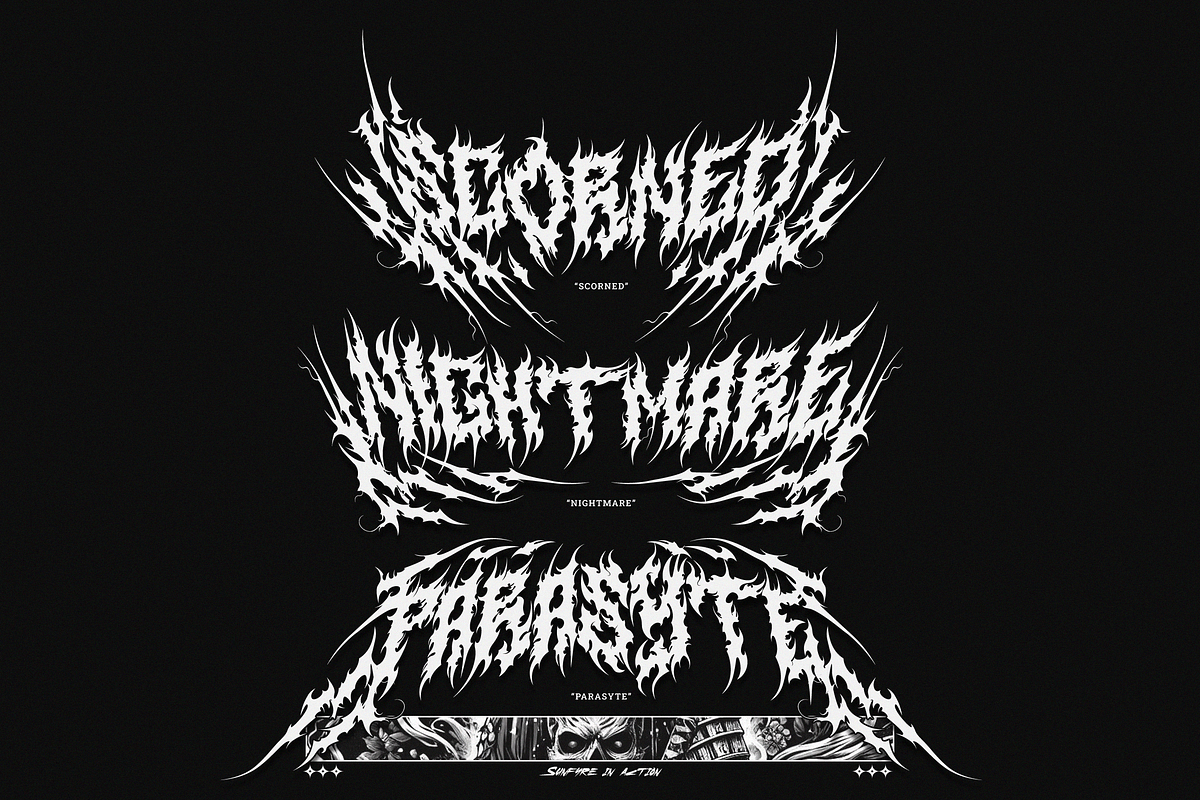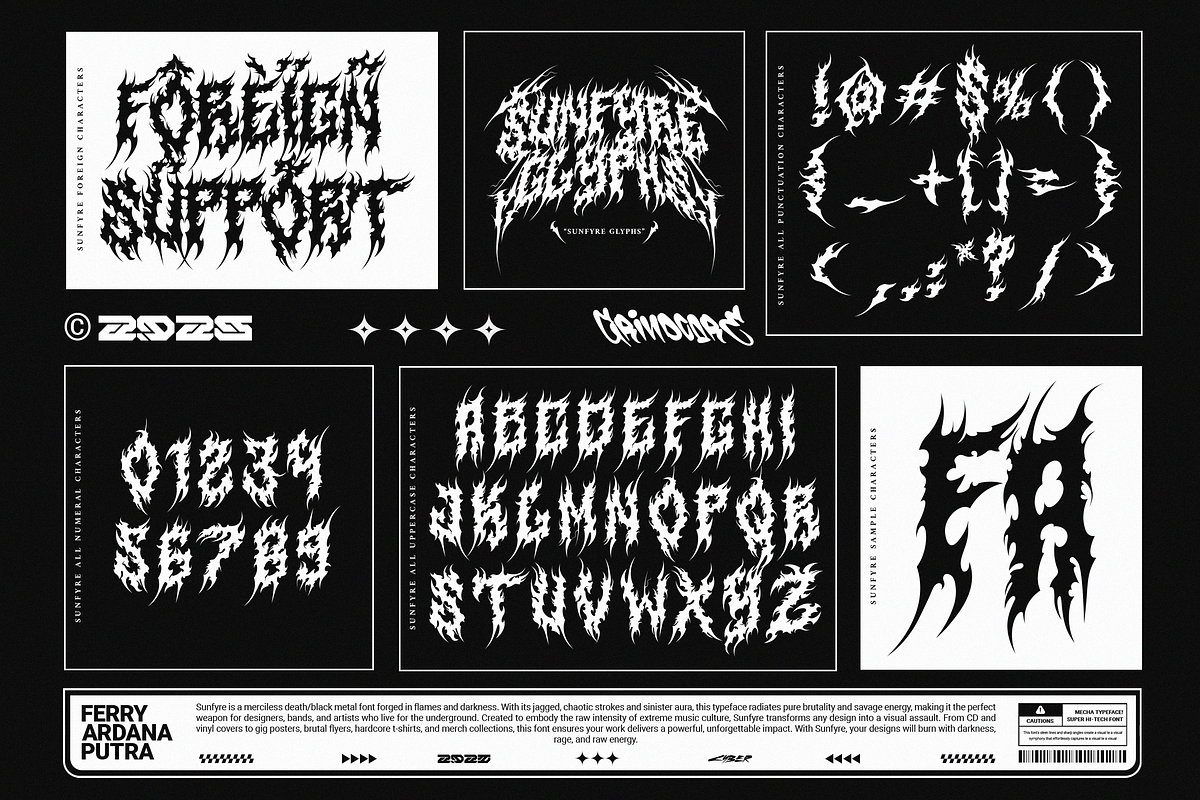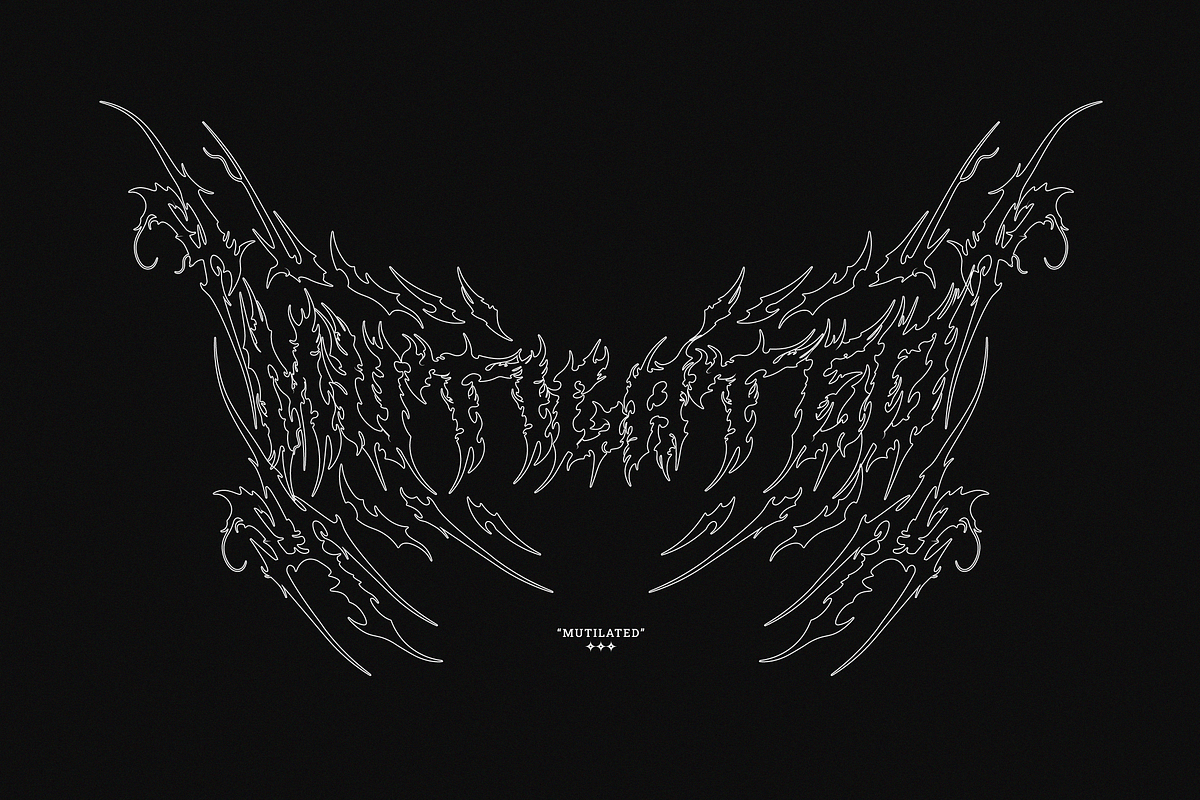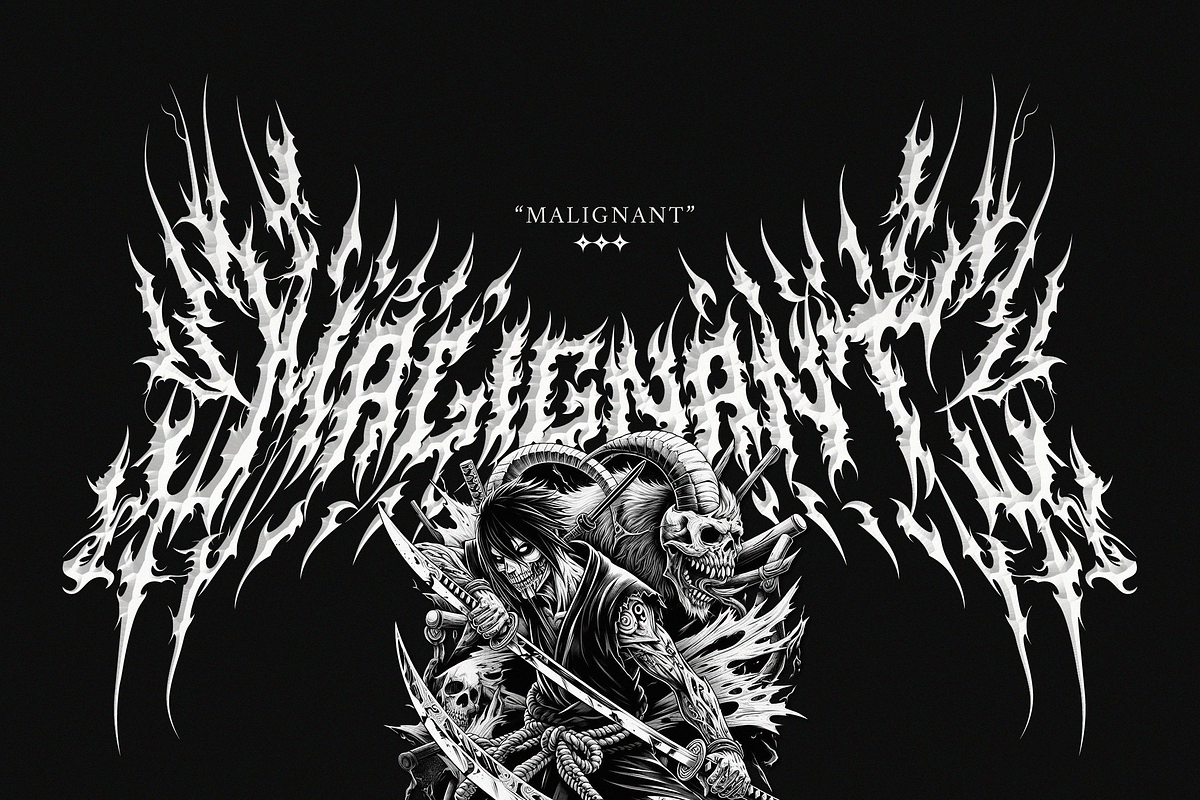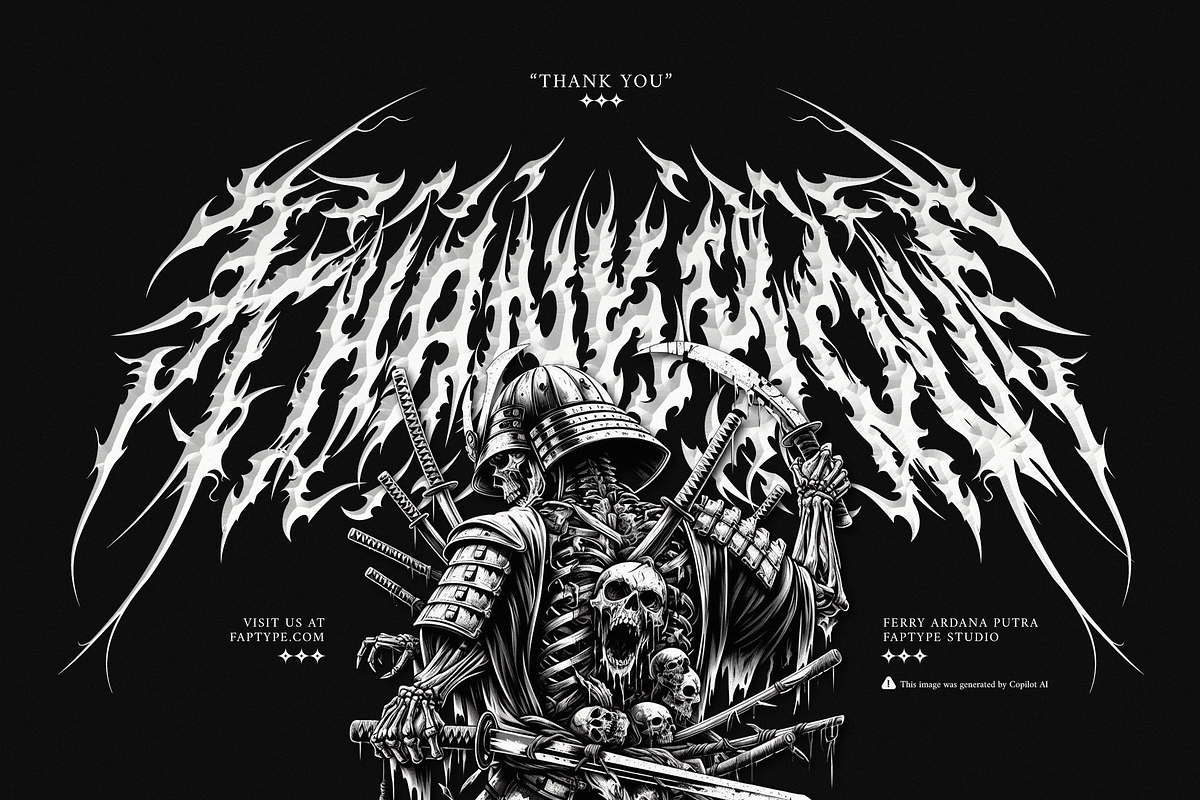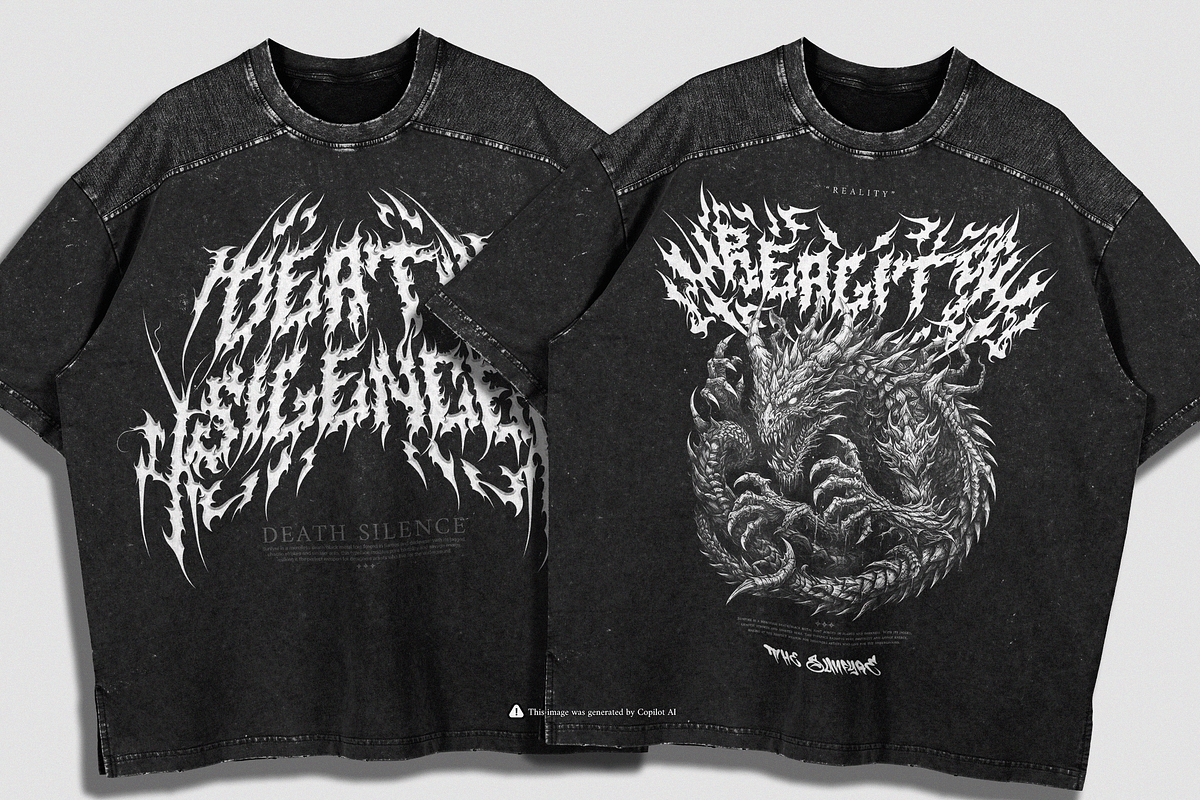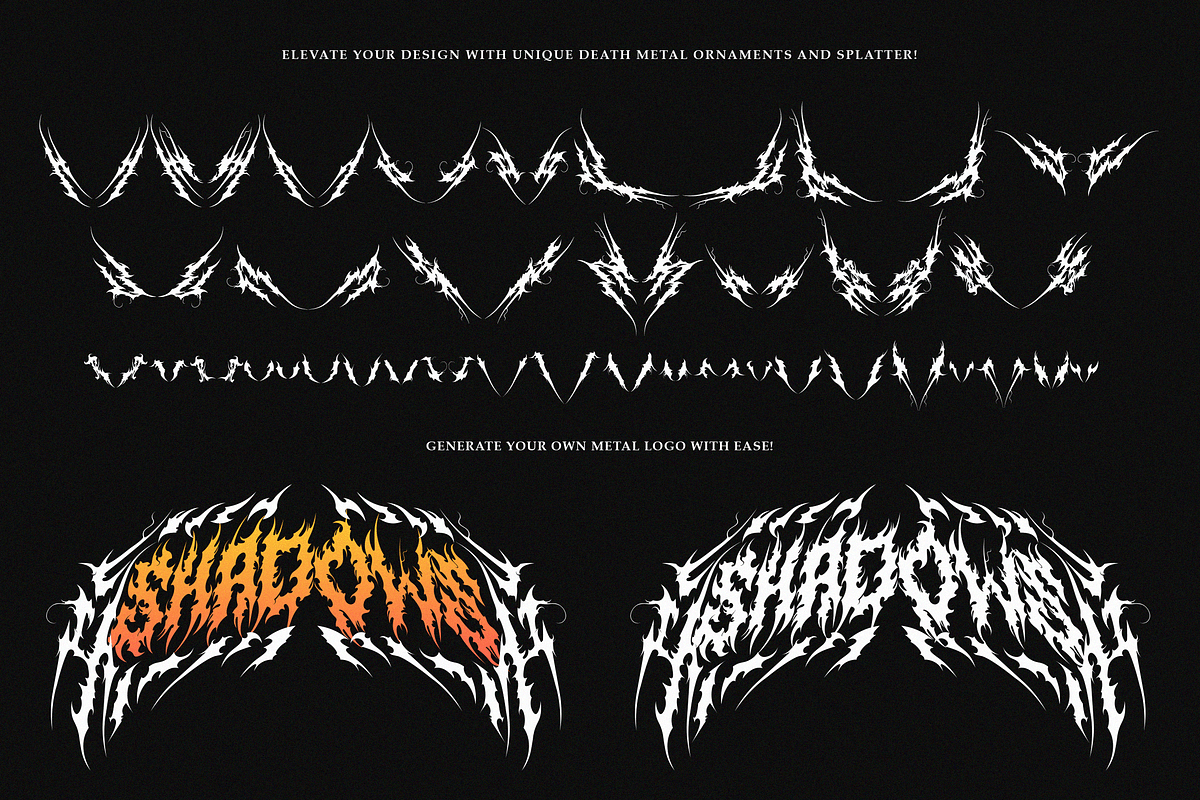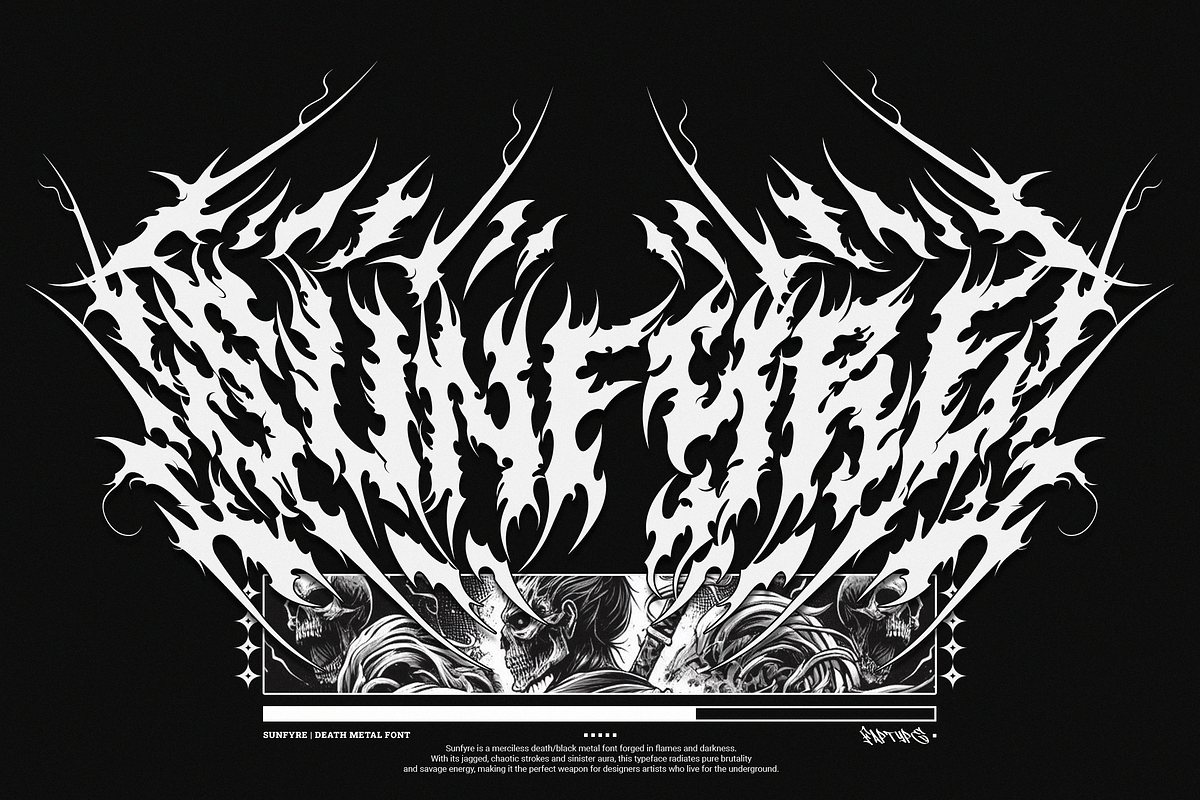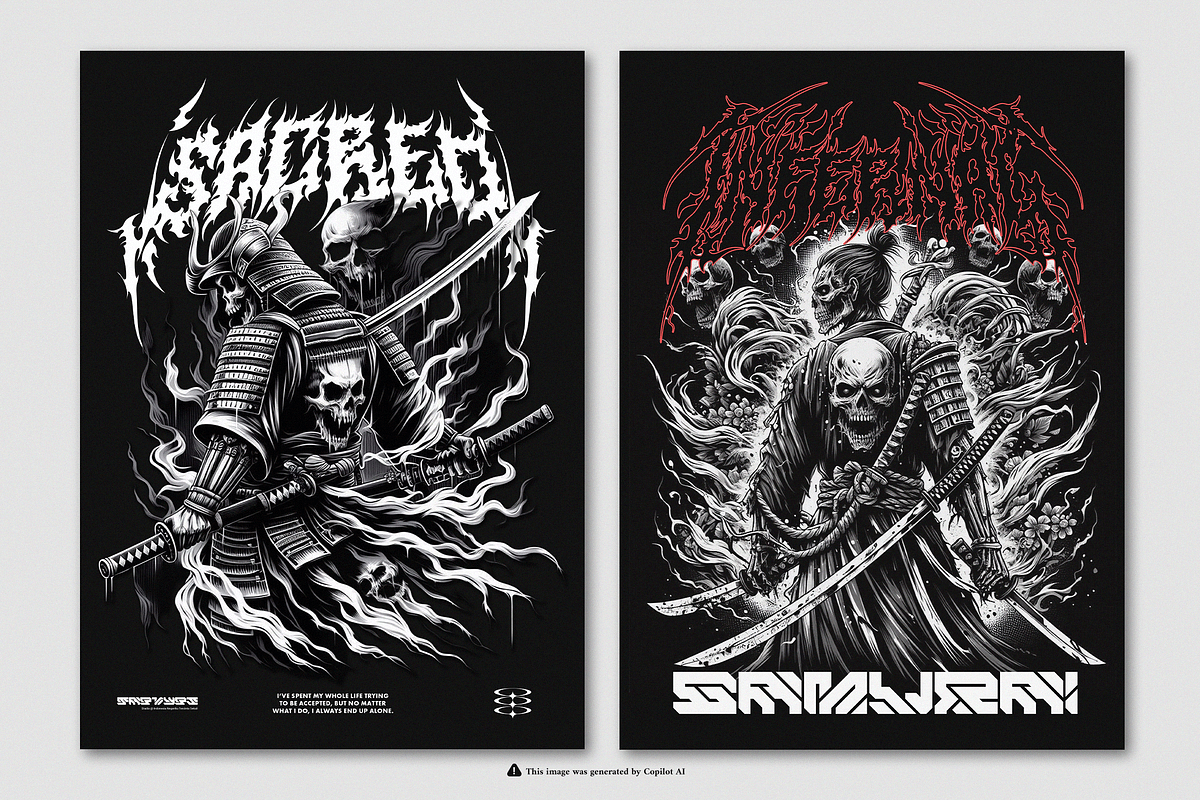
Sunfyre | Brutal Black Metal Font
Sunfyre Black Metal Font – Brutal Typeface for Extreme Designs
Why Choose Sunfyre Black Metal Font?
Sunfyre Black Metal Font is a savage typeface crafted for underground and extreme artwork. With razor-sharp strokes, chaotic textures, and a raw visual atmosphere, this font captures the spirit of true brutality. It is designed for bands, labels, and creators who want their designs to stand out in the darkest corners of the scene.
Every curve and jagged edge is built to reflect the intensity of black and death metal culture. This makes Sunfyre not just a font, but also a weapon of expression for those who value aggression, authenticity, and rebellion in design.
Design Uses for This Brutal Metal Typeface
This extreme typeface is perfect for a variety of creative projects. Album covers, vinyl sleeves, and band logos gain instant impact when designed with this brutal metal font. Festival flyers, horror movie posters, and hardcore t-shirt graphics become bold statements of raw energy.
Beyond music, the Sunfyre font also fits gaming visuals, dark fantasy artwork, and tattoo-inspired branding. Its chaotic yet readable style ensures that your words turn into unforgettable symbols. Whether you’re designing for merchandise, streetwear, or horror projects, this black metal typeface delivers unmatched power.
Sunfyre Features
Full set of Uppercase
Numbers and Punctuation
Multilingual Language Support
PUA Encoded Characters
OpenType Features
+364 Total Glyphs
+127 Death Metal Ornaments included